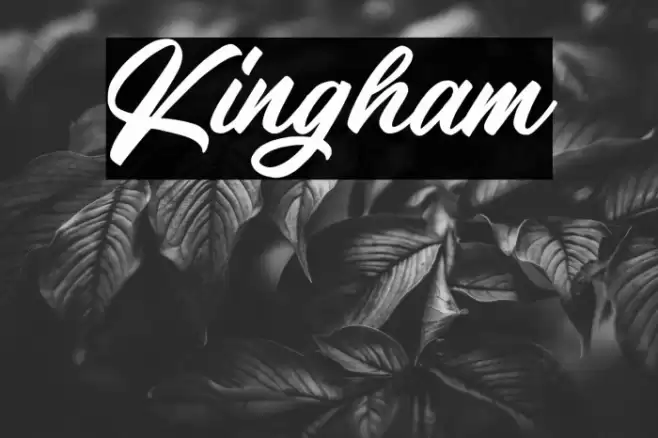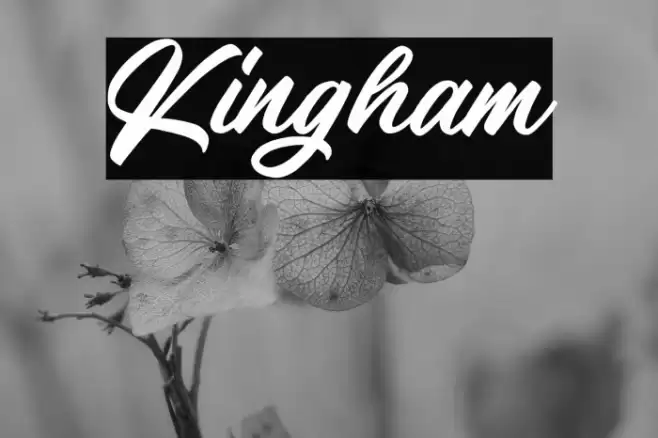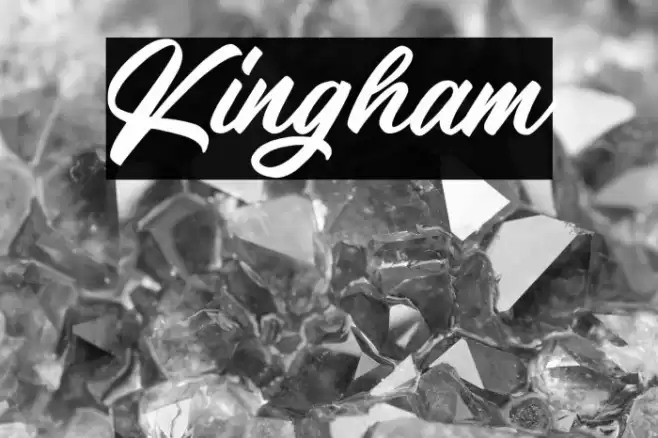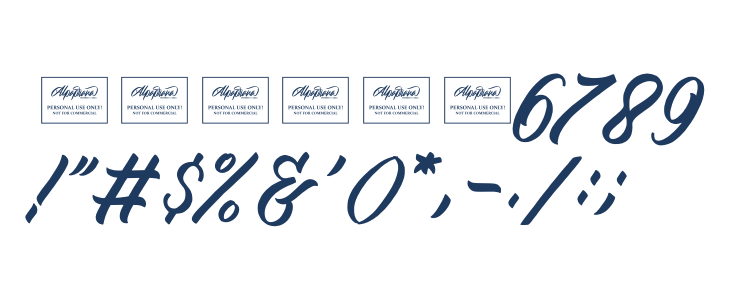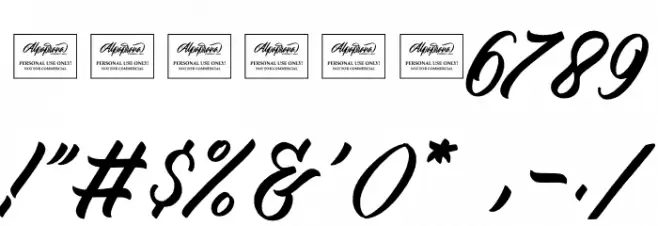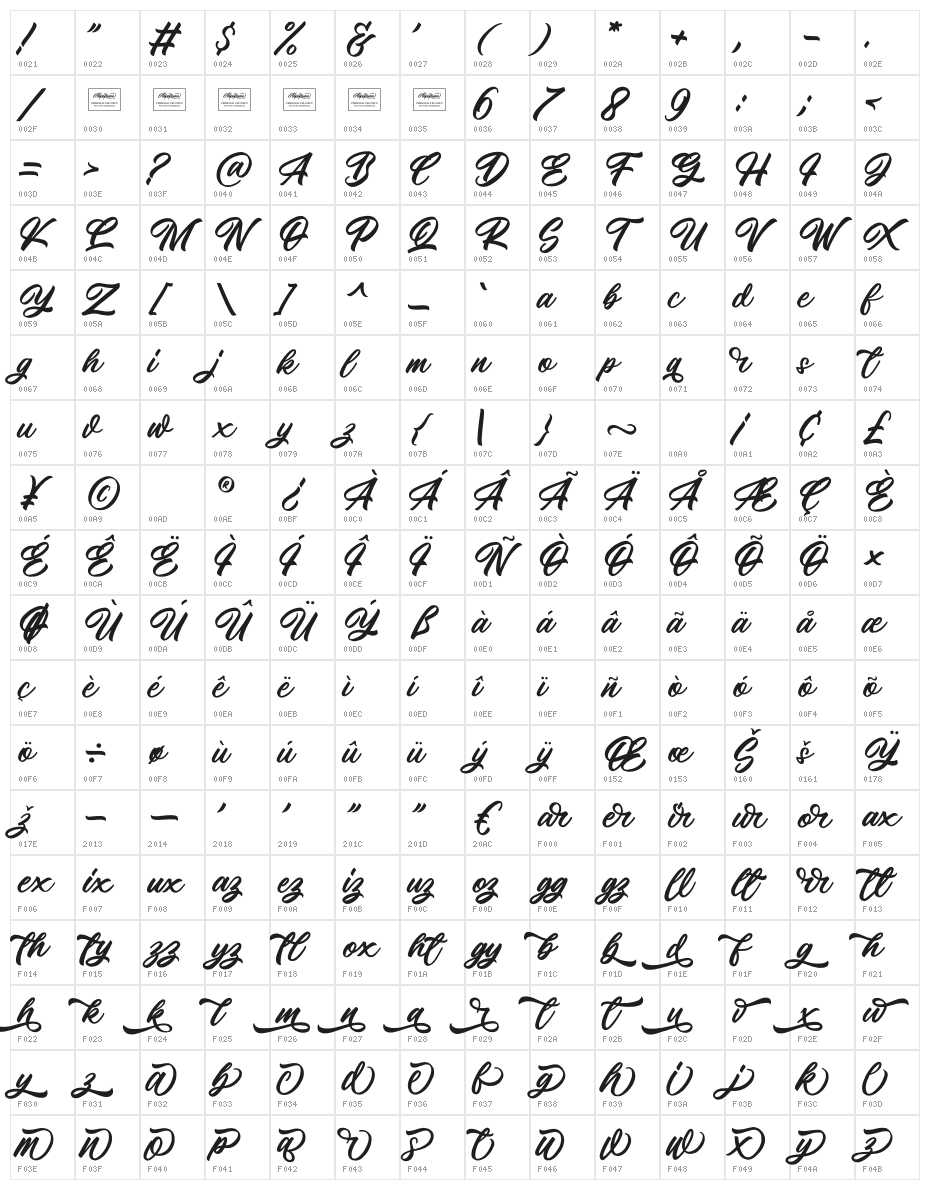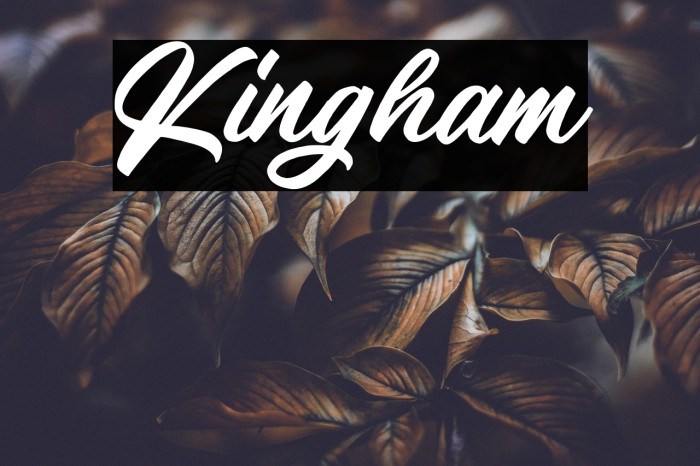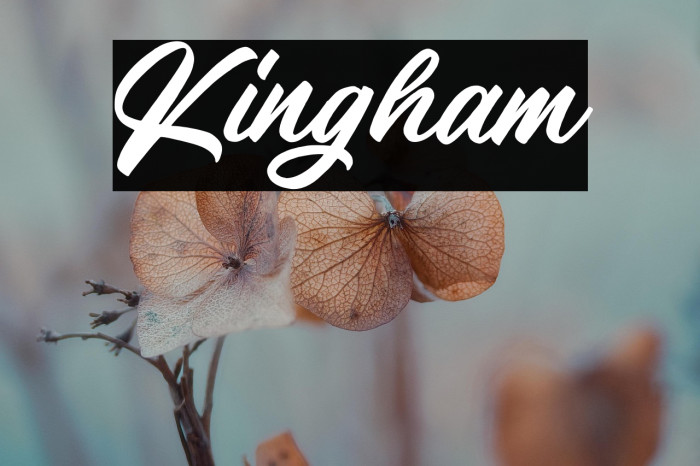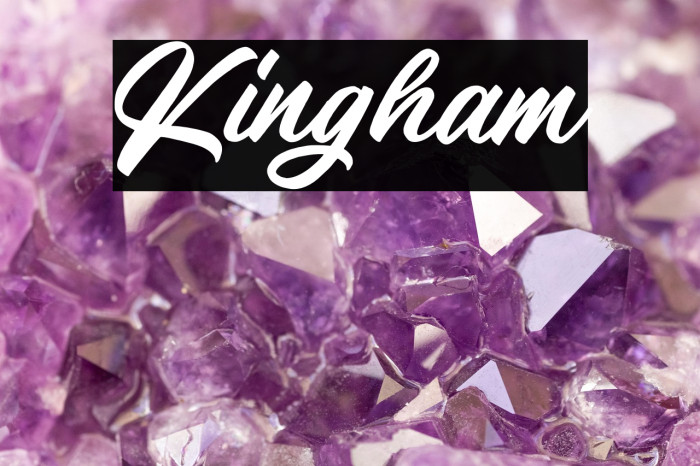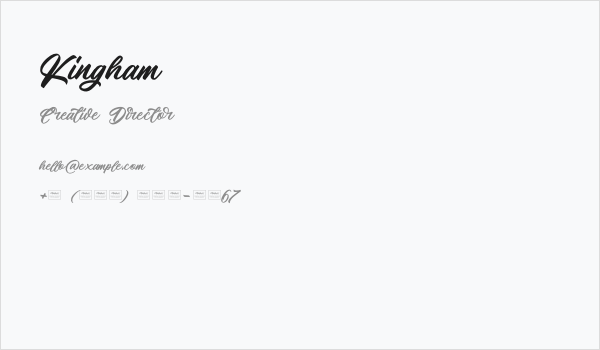
Kingham Font
Kingham Description
This font features a bold, flowing script style that exudes elegance and sophistication. The characters are interconnected, creating a seamless and fluid appearance. The uppercase letters are slightly larger and more ornate, while the lowercase letters maintain a consistent flow. The numbers and special characters are designed to match the overall aesthetic, with smooth curves and a cohesive look. This font is perfect for projects that require a touch of class and style, such as invitations, branding, and decorative designs.
A bold, elegant script font with interconnected characters and a sophisticated style from Regular fonts.
- Proposed Projects: Ideal for wedding invitations, luxury branding, greeting cards, and decorative signage.
- Character Spacing: Tight
- Overall Style: Elegant
- Use Case: Logos, Invitations, Decorative text